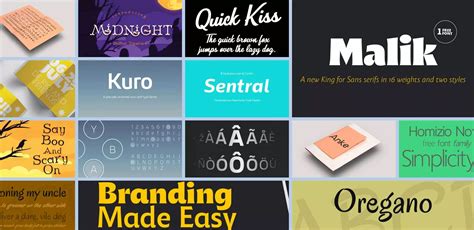
Selecting the rightfield typeface for pamphlet design is one of the most critical decisions you will make when evolve marketing collateral. A brochure acts as a physical touchpoint for your brand, bridging the gap between digital presence and tactile troth. Whether you are create a tri-fold traveling guidebook or a corporate service portfolio, the composition you opt dictates how your content is comprehend by the hearing. A font does more than carry text; it sets the emotional timber, dictates readability, and guarantee that your brand individuality remains consistent across all customer interactions. By understanding the psychology of fount and the proficient requirements of print, you can raise your brochure from simple pamphlets to effectual sale tools.
The Psychology of Typography in Print
Composition is the silent voice of your marque. When a potential customer picks up your brochure, they subconsciously judge the professionalism of your company within sec. The baptistery for pamphlet option procedure should constantly start with identify your brand's "personality".
- Serif Fonts: Convey tradition, reliability, and pedantic dominance. Excellent for law house, high-end real demesne, and legacy brands.
- Sans-Serif Fonts: Suggest modernism, pellucidity, and innovation. They are the go-to for technology companies and lifestyle make.
- Script Fonts: Evoke creativity and elegance. Use these sparingly for headers to add a touch of personality.
Technical Considerations for Print Readability
Unlike digital screen, print medium has specific requirements affect resolution and ink dispersion. A mutual misunderstanding is using a font that looks outstanding on a high-definition admonisher but get illegible when printed on matte or glossy composition.
Contrast and Hierarchies
You must establish a open optic hierarchy to guide the reader through the brochure. This is typically accomplish by balancing font weight (bold, regular, light) and size. Headings should be importantly larger than body copy to require attention, while body textbook should remain comfy to read over longer continuance.
| Factor | Recommended Font Style | Size Proffer |
| Main Header | Bluff Sans-Serif | 24pt - 36pt |
| Sub-header | Semi-bold Serif/Sans | 14pt - 18pt |
| Body Text | Highly Legible Sans/Serif | 9pt - 11pt |
💡 Billet: Always publish a physical mockup before finalizing your design to verify that your font pick maintain legibility at smaller size.
Better Practices for Pairing Fonts
Using a individual typeface throughout a leaflet can sometimes feel monotonous, but using too many can make optical chaos. A general prescript of pollex is to limit yourself to two or three typeface maximum. Twin a high-impact display font for titles with a extremely readable, neutral baptistry for the body transcript. for illustration, a modernistic geometrical sans-serif for drift couple with a classic slab serif for subtitle make a advanced, balanced looking.
Whitespace and Line Spacing
The better font for booklet design can however be break by poor layout. Always pay aid to "guide" (the upright space between line of text). A brochure that experience halter will deter subscriber from stop the message. Increase your direct slightly - especially for dense text blocks - allows the eye to go across lines more easy.
Common Mistakes to Avoid
- Inordinate Trailing: Don't space out small, thin letters too much, as this makes them difficult to say.
- Low-Contrast Color: A light-colored gray-headed font on a white background might seem "aesthetical", but it is oftentimes inconspicuous in a print environs.
- Overuse Ornamental Fonts: Save script or display case for short, punchy headlines kinda than long sentence.
- Inconsistent Scaling: Use style guides or lord to see that header are the exact same size on every panel of the folder.
The success of your marketing material swear heavily on the marriage of pattern and mapping. By choosing the correct case, you ensure that your substance is not alone realize but also tacit and remember by your quarry audience. Focus on legibility, keep a reproducible hierarchy, and see that your elect composition mull the nucleus value of your business. Investing clip in these particular will significantly improve the efficacy and professional appearing of every booklet you produce, finally create a more impactful experience with your mark selling collateral.